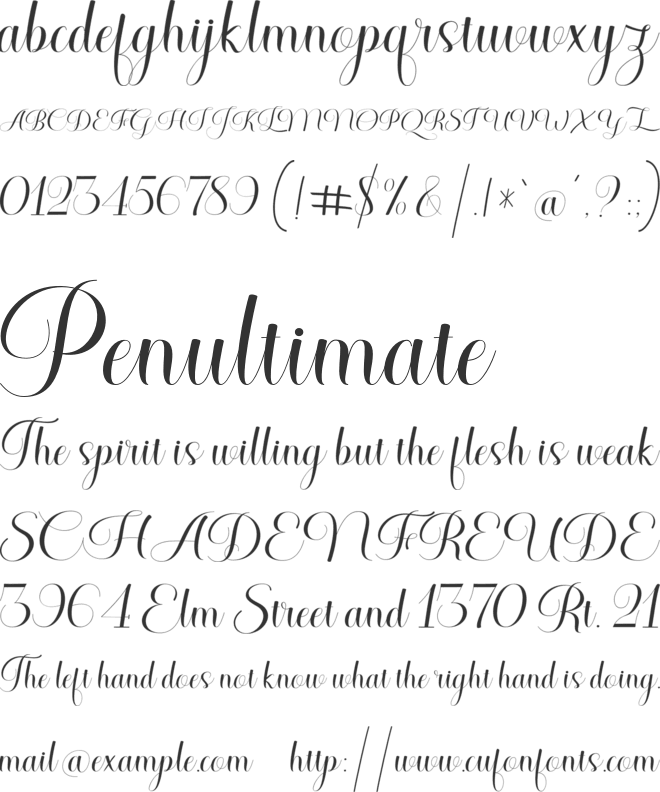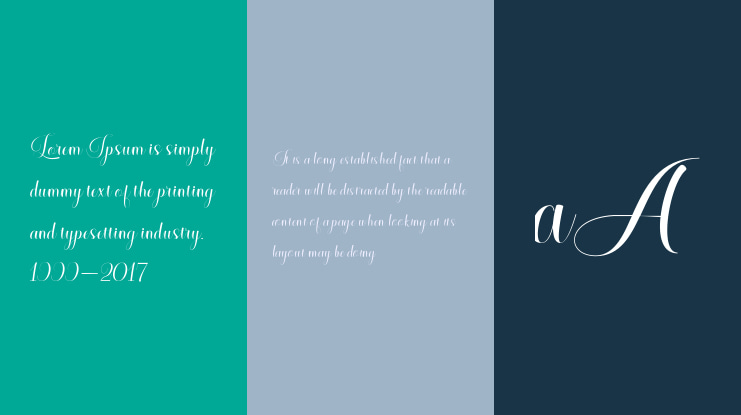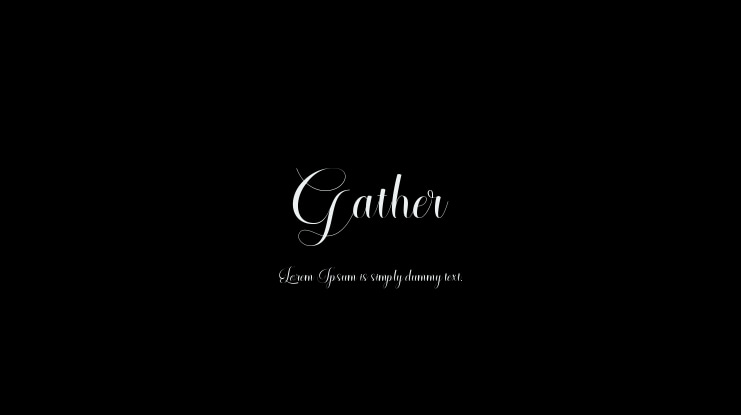
Gather Font
Gather is a new modern script font that looks beautiful on wedding invitations, thank you cards, quotes, greeting cards, logos, business cards and more. Perfect for use in ink or watercolors. Including beginning and ending letters, alternatives, binders and multi-language support.
This package is perfect for greeting cards, branding, business cards, quotes, posters, stickers, blogs, logos, weddings, signage, packaging, birth announcements, photo overlays, wall art, offers, printed matter, bags, t-shirts and many again, again!